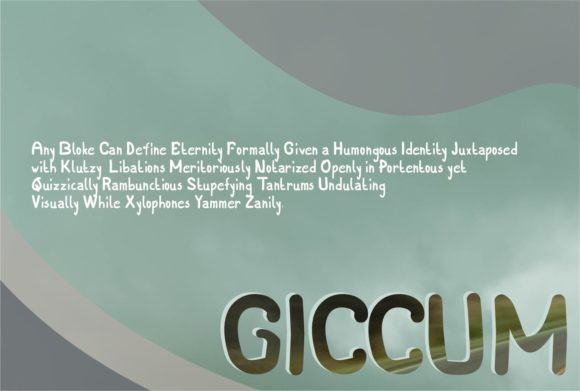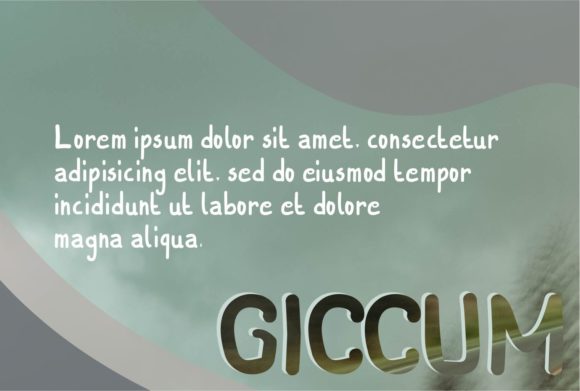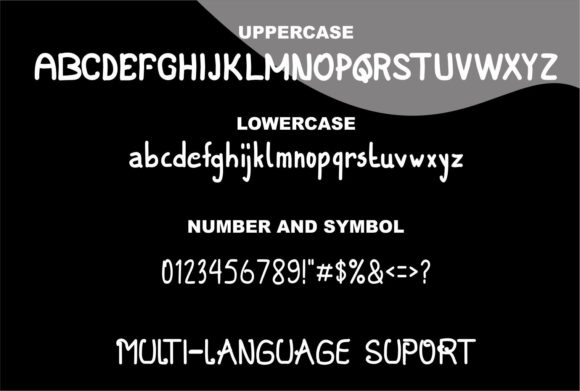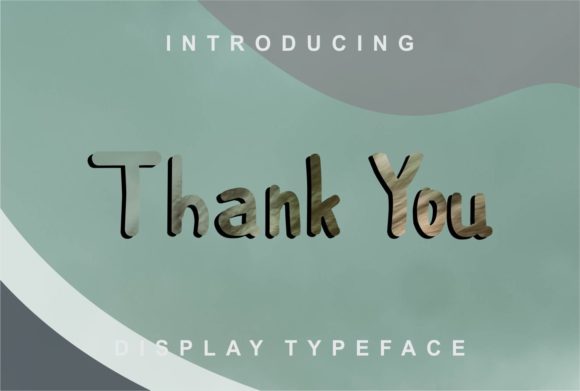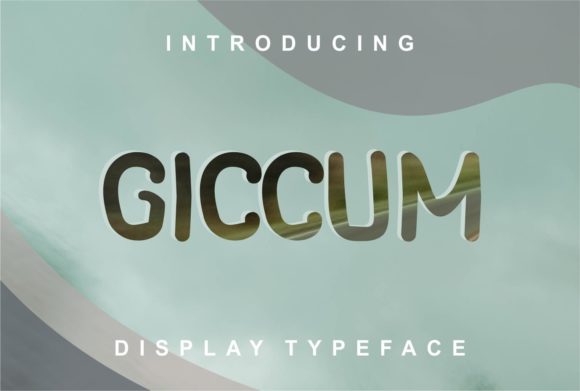
Giccum Font: Elevate Your Designs with a Clean and Adaptable Display Font
In the world of design, fonts play a crucial role in conveying messages, evoking emotions, and creating visual identities. For designers and crafters, finding the perfect font can be a daunting task. However, if you’re looking for a clean, adaptable, and stunning display font, look no further than Giccum Font. In this article, we’ll explore the features, benefits, and endless possibilities of using Giccum Font in your designs.
What is Giccum Font?
Giccum Font is a modern, clean, and highly adaptable display font designed to make a statement. Its sleek lines, precise curves, and balanced structure make it perfect for a wide range of applications, from posters and flyers to prints and digital media. Whether you’re a professional designer or a crafty enthusiast, Giccum Font is an excellent addition to your typography arsenal.
Key Features of Giccum Font
- Clean and Minimalist Design: Giccum Font boasts a clean and minimalist design, making it easy to read and visually appealing.
- Adaptable and Versatile: This font is highly adaptable and can be used in various contexts, from headings and titles to body text and captions.
- Highly Legible: Giccum Font is designed to be highly legible, even at small sizes, making it perfect for use in a variety of applications.
- Supports Multiple Languages: This font supports multiple languages, making it a great choice for designers working on international projects.
Benefits of Using Giccum Font
So, why should you choose Giccum Font for your designs? Here are just a few benefits:
- Instant Recognition: Giccum Font’s unique design ensures instant recognition and can help establish your brand’s visual identity.
- Professional Look and Feel: This font gives your designs a professional look and feel, making it perfect for businesses, organizations, and individuals looking to elevate their brand.
- Easy to Pair with Other Fonts: Giccum Font is highly versatile and can be easily paired with other fonts to create stunning typography combinations.
- Endless Creative Possibilities: With Giccum Font, the creative possibilities are endless. Use it for posters, flyers, prints, digital media, and more.
Endless Possibilities with Giccum Font
So, how can you use Giccum Font in your designs? The possibilities are endless:
- Posters and Flyers: Use Giccum Font as a headline font to grab attention and make a statement.
- Branding and Identity: Establish your brand’s visual identity with Giccum Font as your primary font.
- Digital Media: Use Giccum Font in your digital media, such as social media graphics, website headers, and email newsletters.
- Print Materials: Add a touch of elegance to your print materials, such as business cards, brochures, and catalogs.
In conclusion, Giccum Font is a clean, adaptable, and stunning display font that can elevate your designs to the next level. Its versatility, legibility, and professional look make it perfect for a wide range of applications. Whether you’re a designer, crafty enthusiast, or business owner, Giccum Font is an excellent choice for your typography needs. So, explore its endless possibilities and take your designs to new heights.